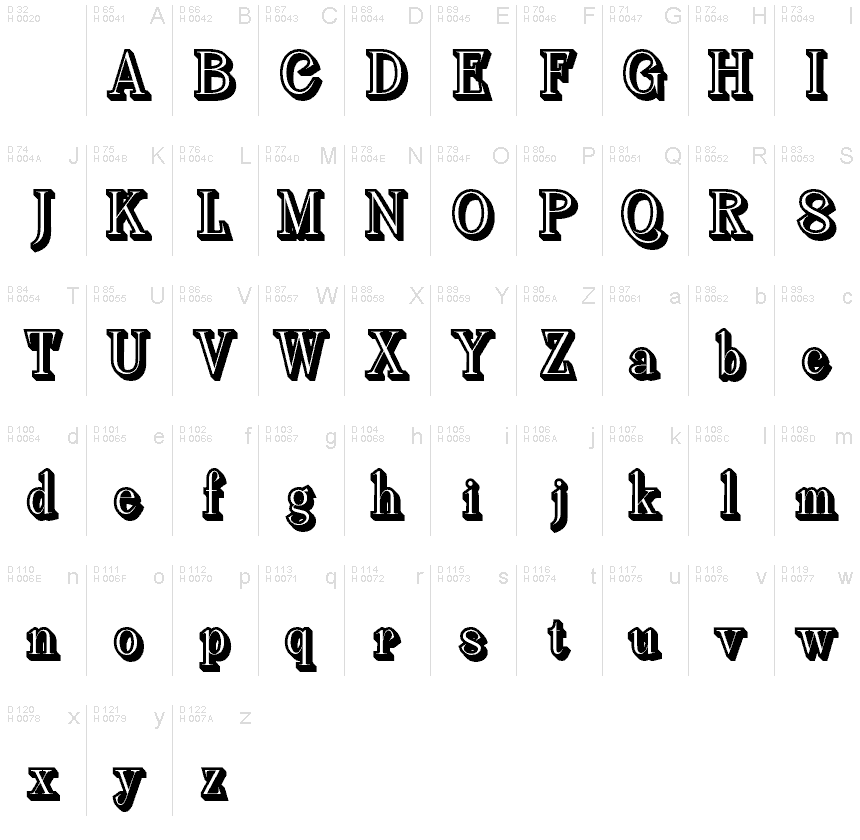
Chavler-ExtrudeRight Demo
Chavler ExtrudeRight font is a striking theatrical presence achieved by geometric elements that reference art deco aesthetics. Created by Craft Supply Co., the free serif font is retro-inspired and displays bold letters with soft top angles and sharp bottom corners. A shadowed 3D effect gives the entire character set an elegant yet fun look, making it more interesting.
Use Chavler ExtrudeRight in magazine covers, album backdrops, user interface designs for mobile apps and websites, video games artwork, social media pictorial posts, posters of theater events or band music events, packaging for juice brands or canned goods or coffee pack products as well as promotional pamphlets.